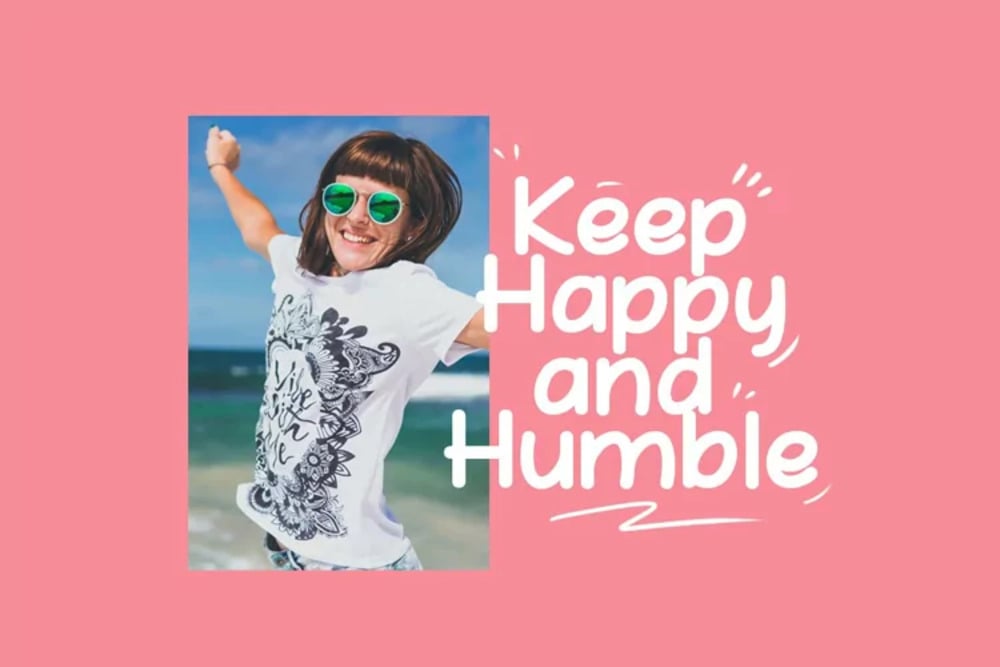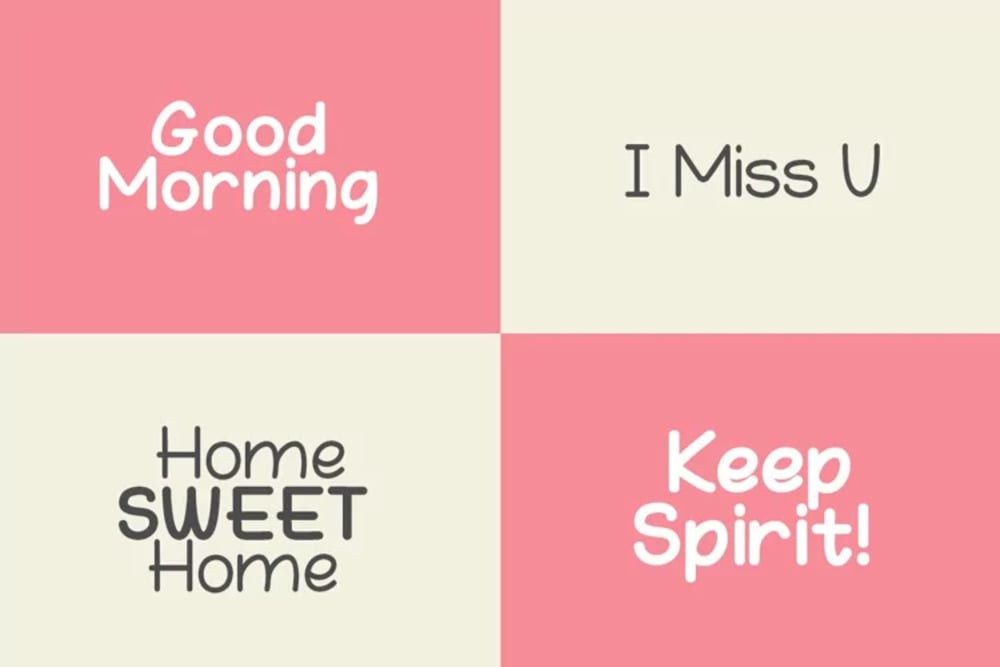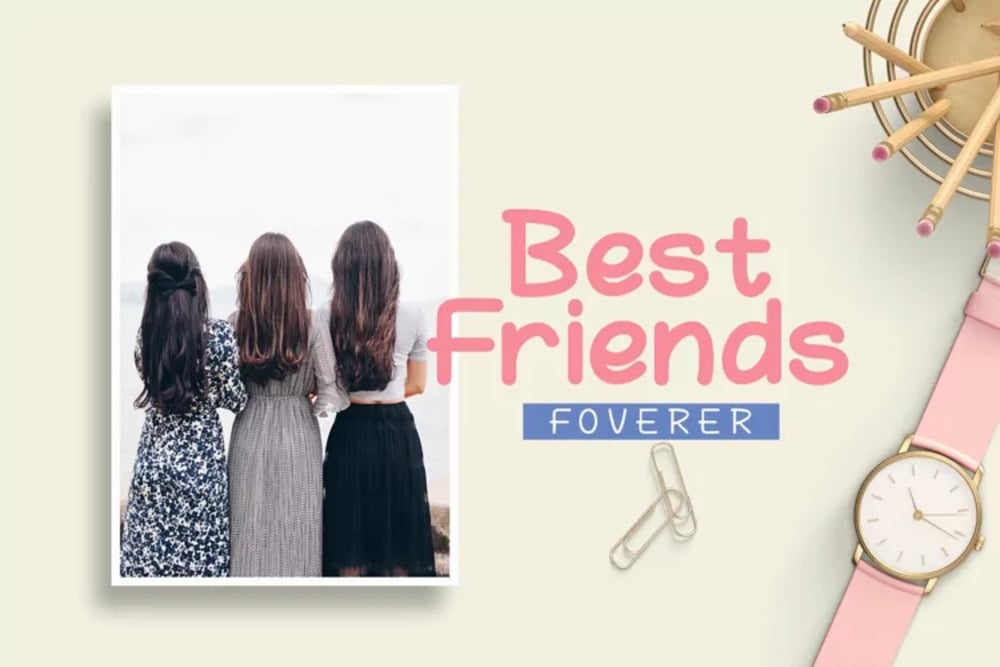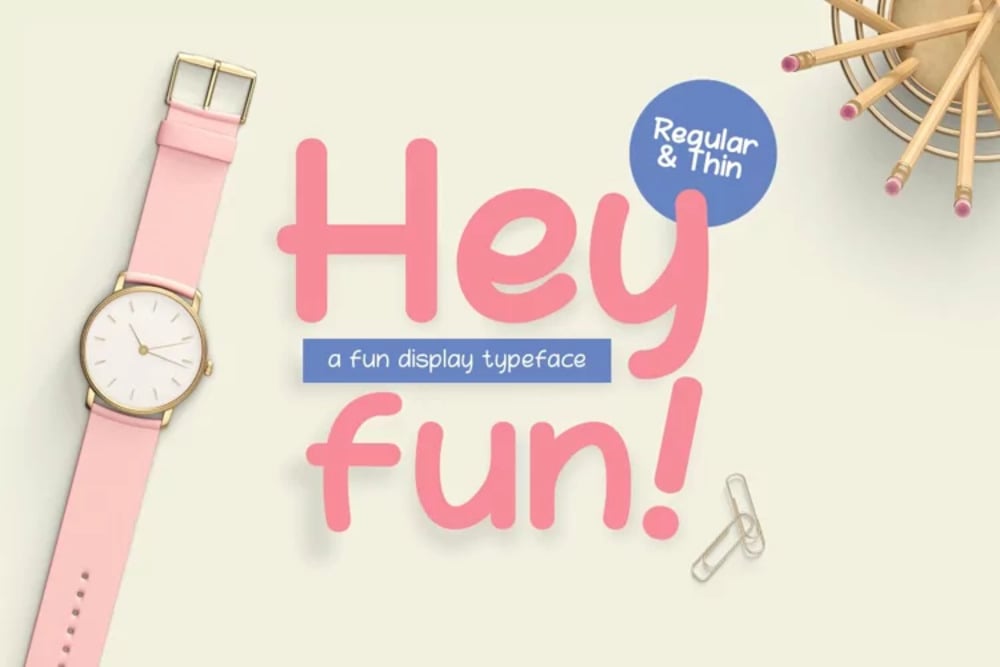
Hey Fun Font
Hey Fun is a vibrant, bubbly font bursting with energy and playfulness. Its rounded, chunky letters and slightly irregular strokes give it a dynamic, youthful feel, perfect for kids’ projects, party invitations, and cheerful branding. The font’s friendly personality makes any design feel inviting, while its bold presence ensures eye-catching appeal in posters, social media, and packaging.